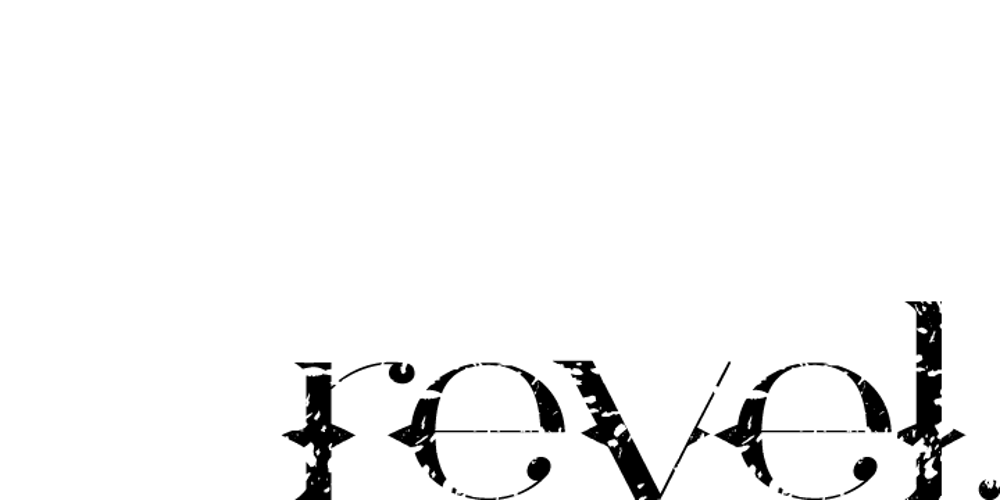
Revel Font Family was designed by Emily Conners and published by Emily Lime. Revel contains 1 styles and family package options. Revel is a stylish blend of high fashion meets country western. Use all Caps for an ultra-modern, sophisticated look. Or type in all lowercase for a more youthful, rocker effect. This cool font also comes with alternates, decorative elements, ligatures and even a few swashes thrown in the mix.